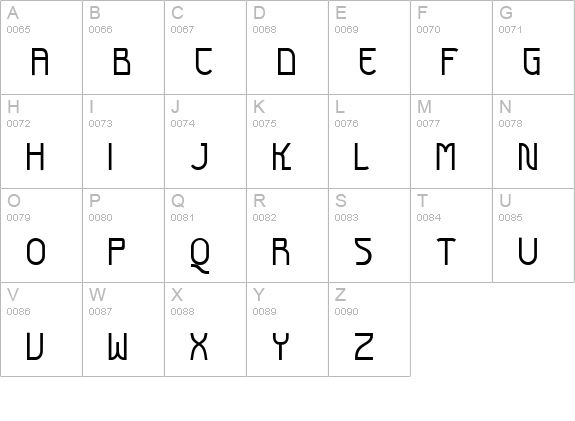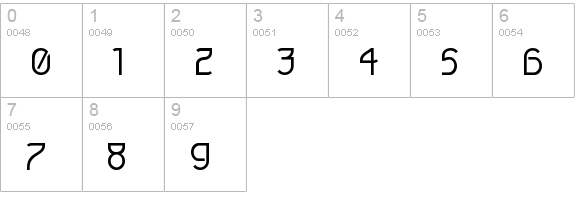
Embrace the sleek and modern aesthetic of Futurex Variation Alpha font, a versatile typeface that effortlessly combines futuristic elements with a touch of elegance. With its clean lines and unique character shapes, this font is perfect for a wide range of design projects, from branding to editorial layouts. What sets Futurex Variation Alpha apart is its dynamic personality and ability to adapt to various design styles. Whether you're looking to create a bold headline or add a subtle touch of sophistication to your text, this font has got you covered. And the best part? Futurex Variation Alpha is available for free download at FontsMarket.com, making it easily accessible for designers and creatives looking to elevate their work with a distinctive and contemporary typeface. Don't miss out on the opportunity to add this stunning font to your collection today!